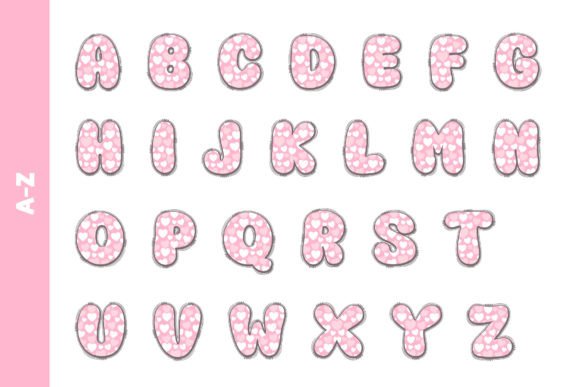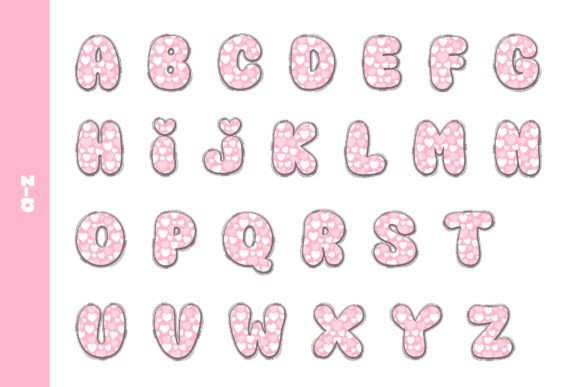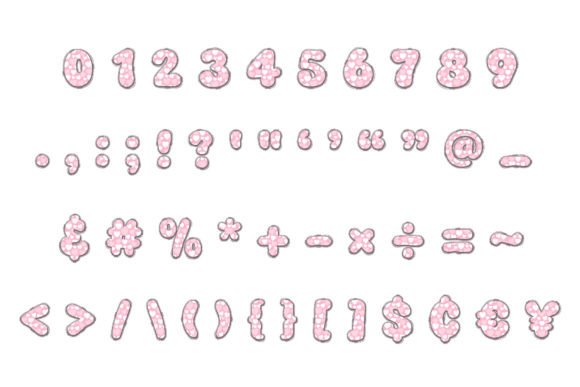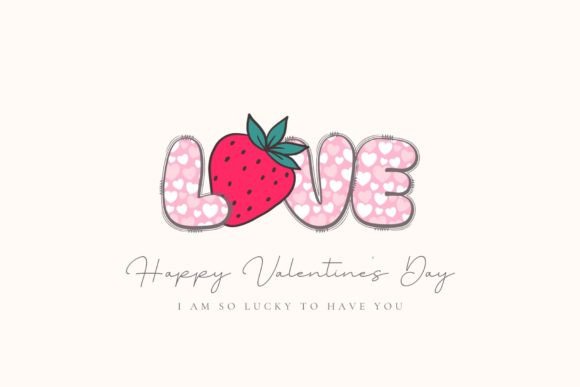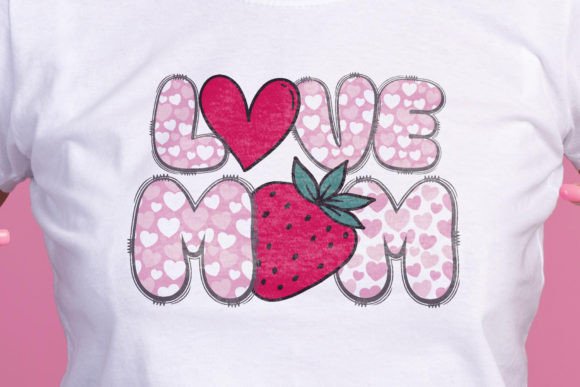
Introduction to Fox Chick Font
Fox Chick is a cute and fun color font.
This font is your go-to for crafting cute greeting cards that express affection and warmth Fall in love with its authentic feel and use it to create gorgeous invitations, beautiful stationary art, eye-catching social media posts, and cute greeting cards.
Key Features of Fox Chick Font